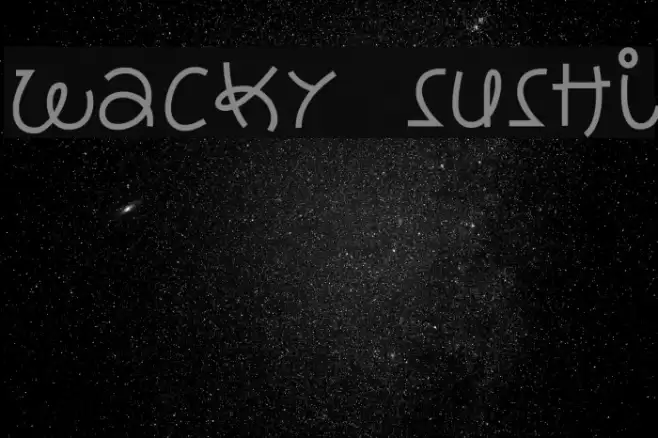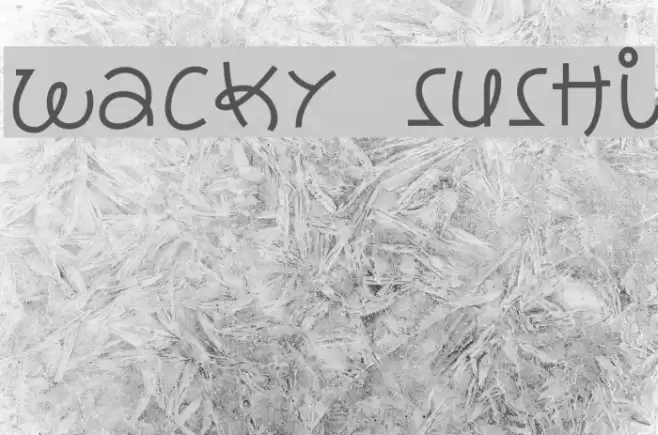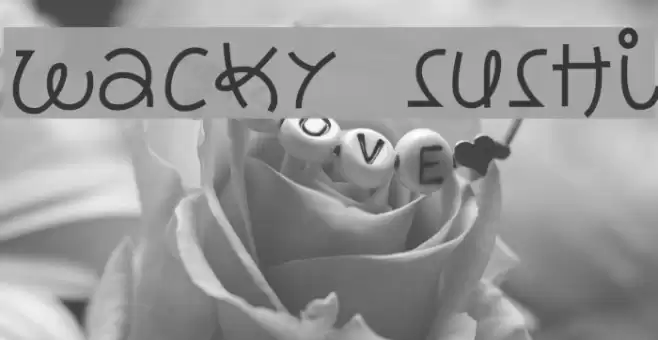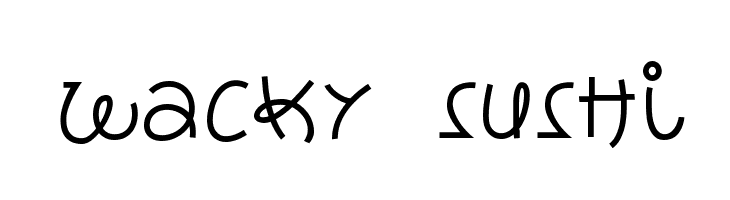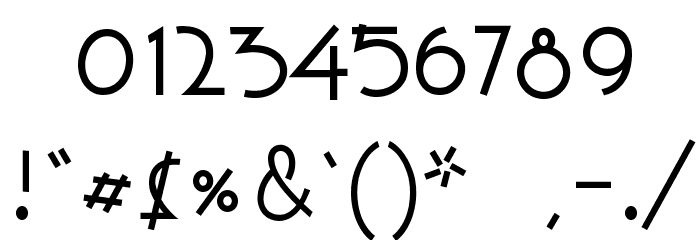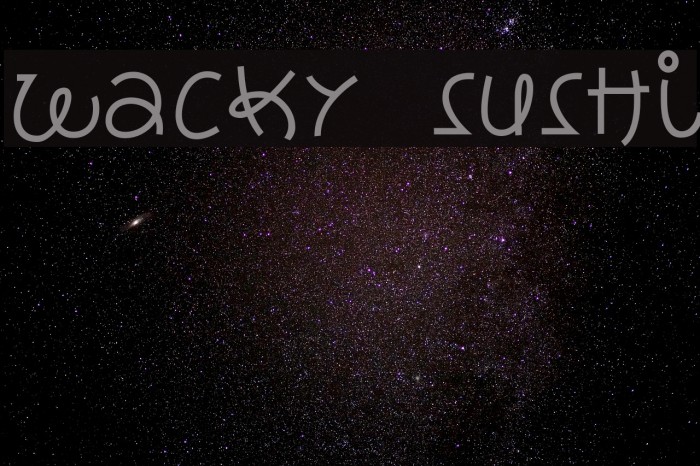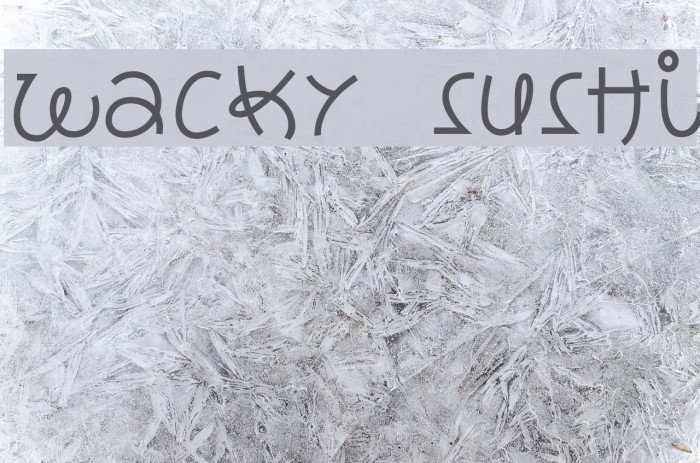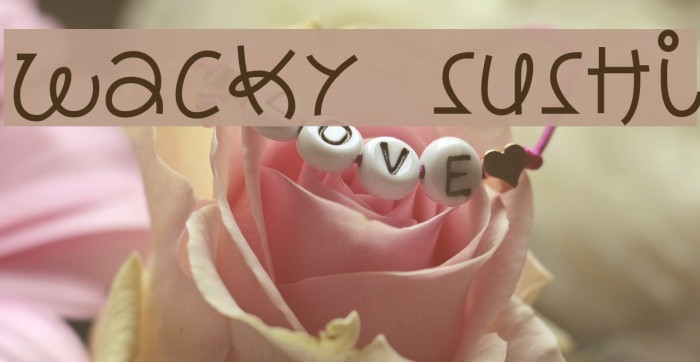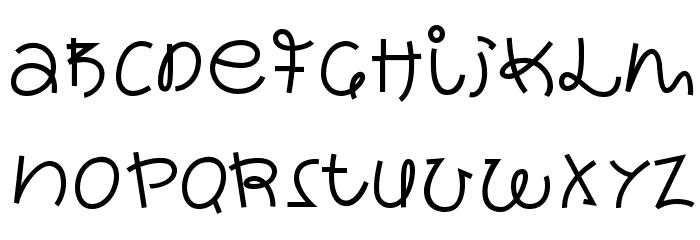
wacky sushi Font
wacky sushi Description
This playful and whimsical font features a unique blend of curves and angles, creating a lively and dynamic appearance. The characters are designed with a sense of movement, making them appear almost animated. The uppercase and lowercase letters share a consistent style, with some letters incorporating unexpected twists and turns. Numbers and special characters maintain the same playful aesthetic, ensuring a cohesive look across all text. The font's overall design is both eye-catching and fun, suitable for projects that require a touch of creativity and humor.
A playful and whimsical font with dynamic curves and angles from Uncategorized fonts.
- Proposed Projects: Ideal for children's books, playful branding, party invitations, and creative posters.
- Overall Style: Whimsical